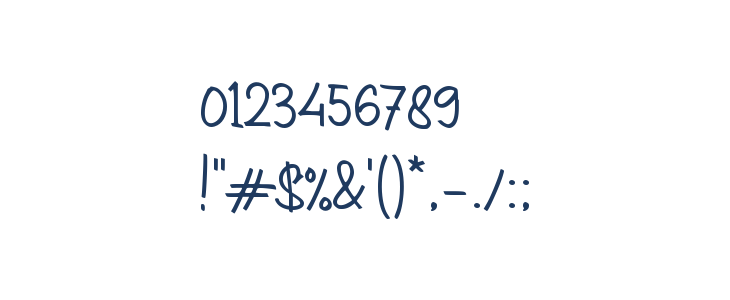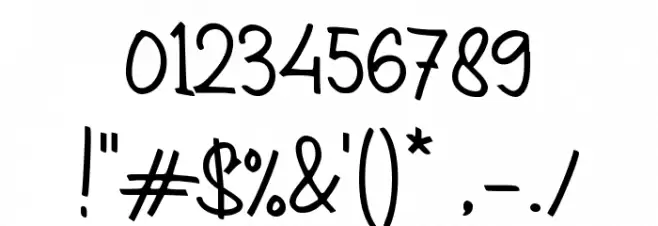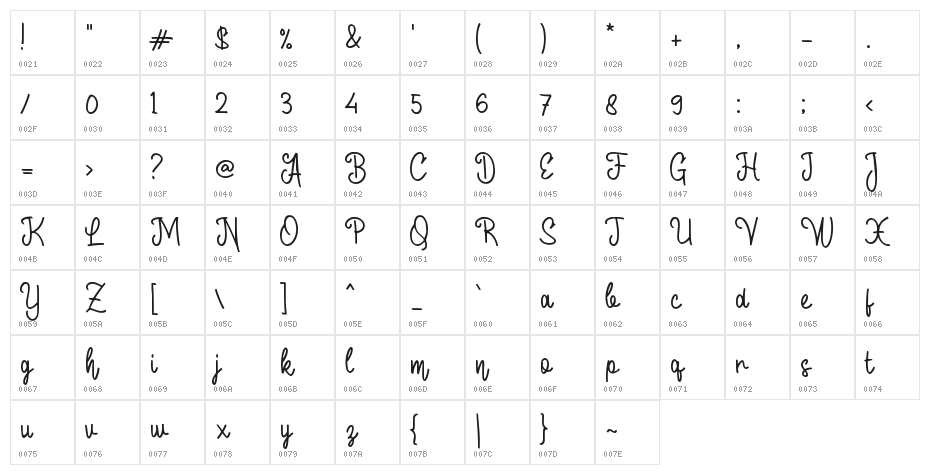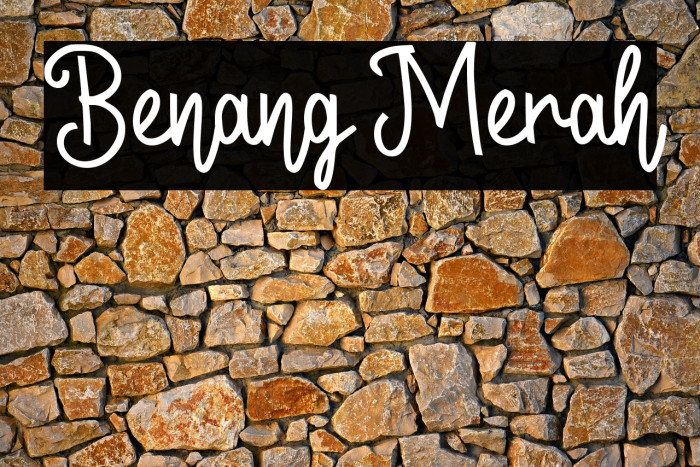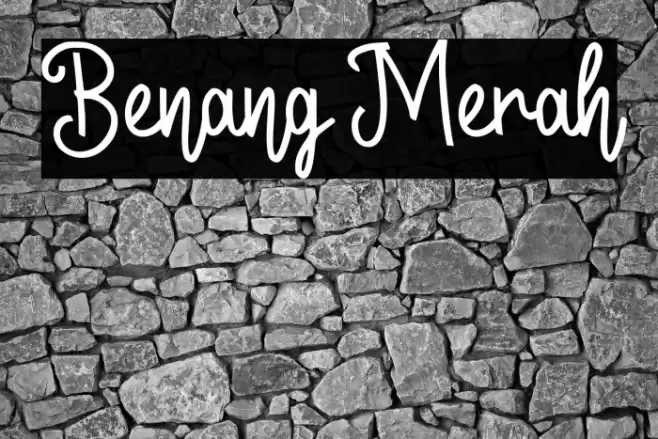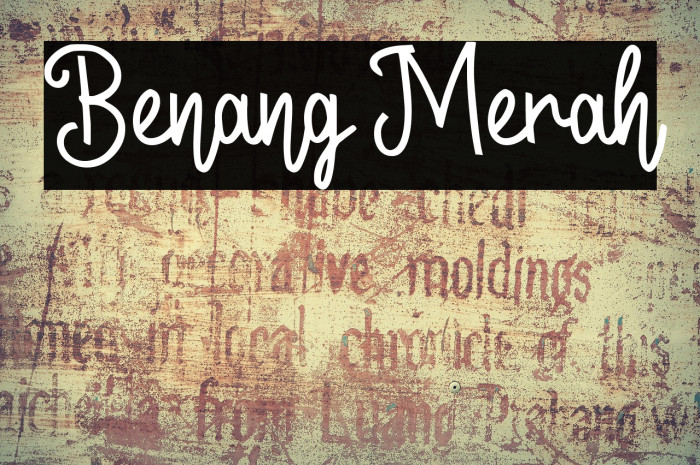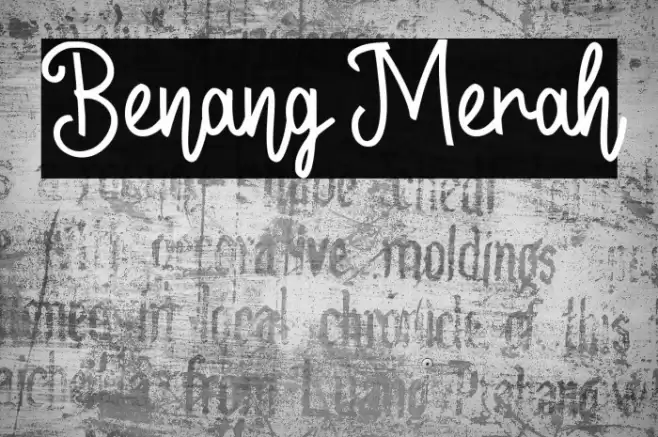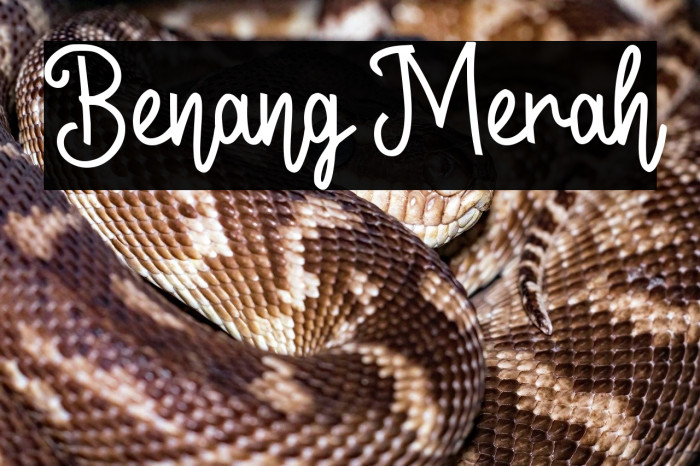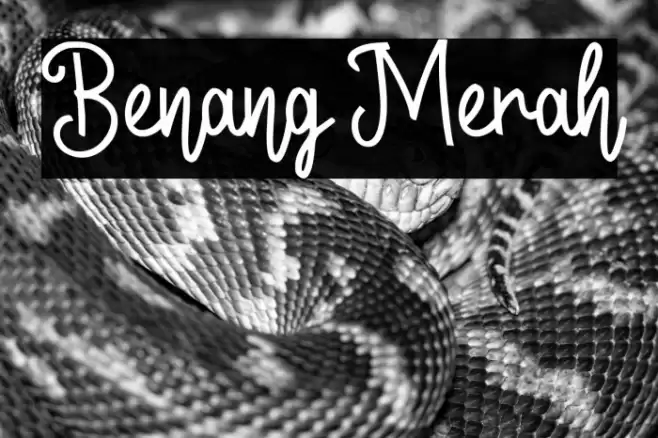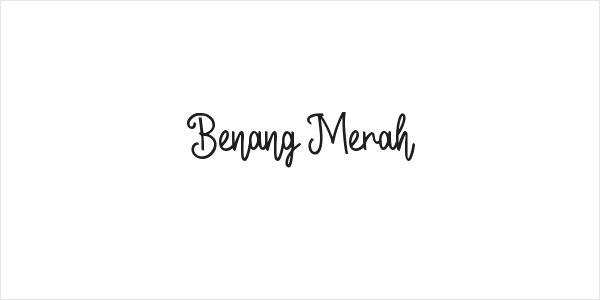
Benang Merah Font
Benang Merah Description
This font features a playful and casual handwritten style, characterized by its flowing, cursive-like strokes. The uppercase letters are bold and slightly whimsical, with a consistent height and rounded edges that give them a friendly appearance. The lowercase letters maintain the same playful nature, with some letters having unique loops and curves that add to the font's charm. The numbers are clear and legible, matching the style of the letters with their rounded and slightly exaggerated forms. Special characters are also included, maintaining the same playful and informal style. Overall, this font exudes a sense of creativity and spontaneity, making it ideal for projects that require a personal touch.
Overall StyleCasual, Playful
Use CaseLogos, Invitations, Greeting Cards
Proposed ProjectsIdeal for greeting cards, invitations, personal branding, and creative projects that require a personal touch.